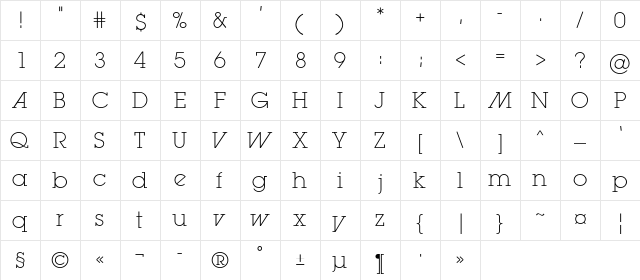
LugaExtraAd Regular
Design Context for LugaExtraAd Typeface
LugaExtraAd offers clean, dependable letterforms without strong stylistic allegiance, making it a practical choice for designers who need flexibility.
Pro Tip: Pair LugaExtraAd with a font of contrasting weight or personality to build a more expressive typographic hierarchy.